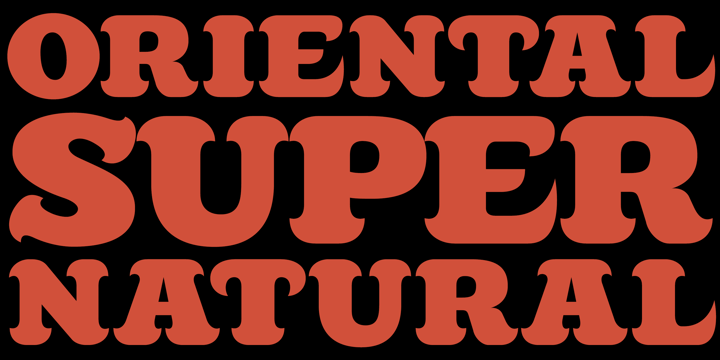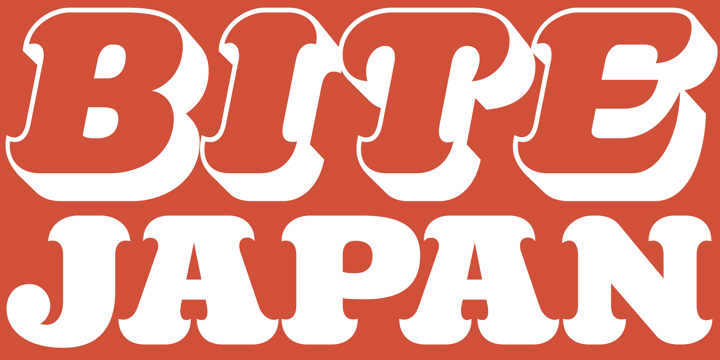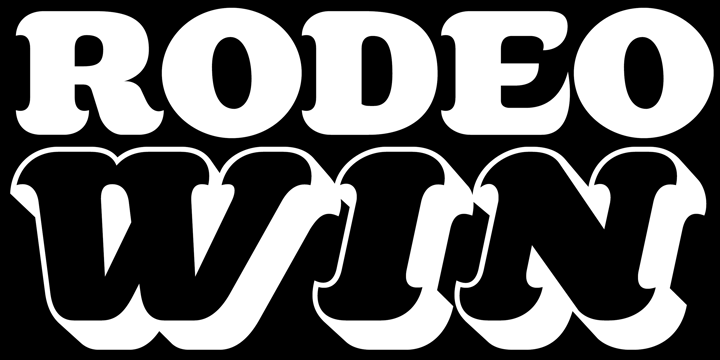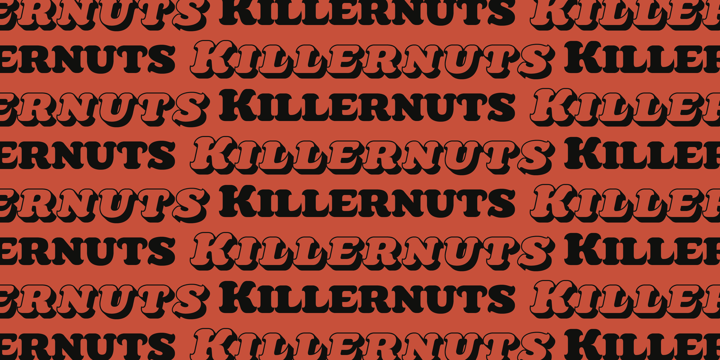
HomeFont BrosSerifKillernuts SerifWacky Killernuts FacebookXPinterestWhatsApp 1 of 4 About Killernuts Wood type for display. Serifs like brush strokes are associated with Japanese calligraphy ?Shodo?. East meets West.  DOWNLOAD NOW People also explored Beloved Hearts Font Sandeg Font Hankey Font Simona Font Mother Nature Font Ameralda Font Same Same But Different You Butterfly Font Highway – Vintage font family+Extras 337 0 TagsKillernuts Font Previous articleEtiquetteNext articleBrute LEAVE A REPLY Cancel reply Comment: Please enter your comment! Name:* Please enter your name here Email:* You have entered an incorrect email address! Please enter your email address here Website: Save my name, email, and website in this browser for the next time I comment. Personal Use Free Bosk Personal Use Free Read more about this font Gupis Personal Use Free Read more about this font Good Timing – Bold Personal Use Free Read more about this font BD RatterBit Personal Use Free Read more about this font BLOG Best Fonts for T-Shirt Design – Top 2025 Picks In 2025, t-shirt design has become more than just fashion—it's a form of self-expression. Whether you're... Modern Sans-Serif Fonts That Brands Love in 2025 Where to Buy American Fonts Online in 2024 Top 7 Google Fonts Alternatives for Faster and Privacy-Friendly Web Design (2025)